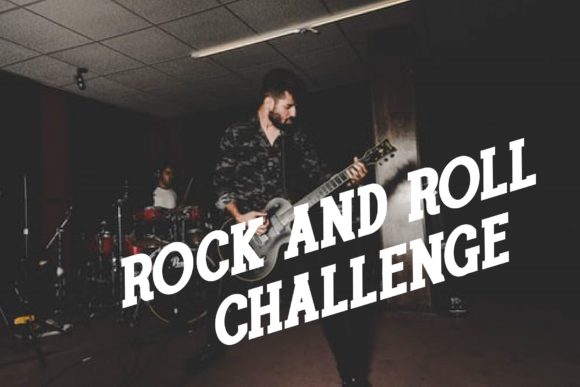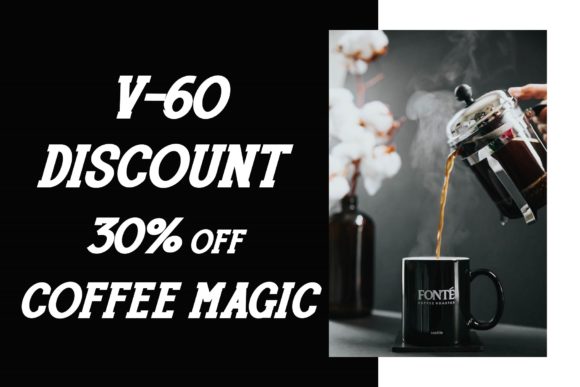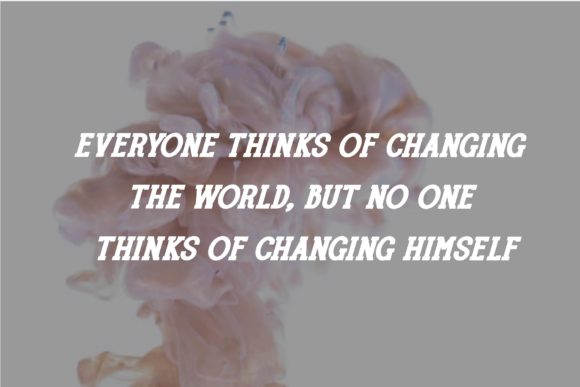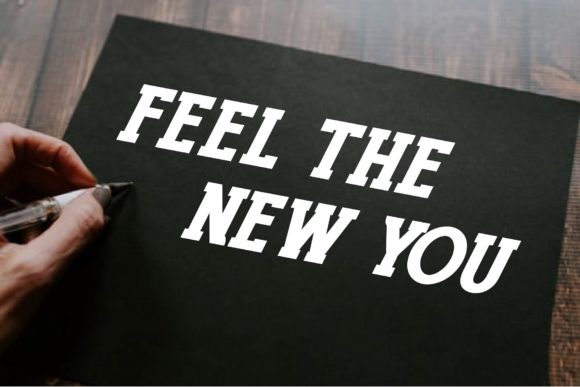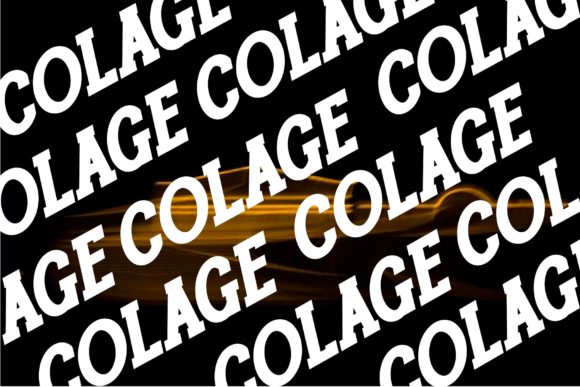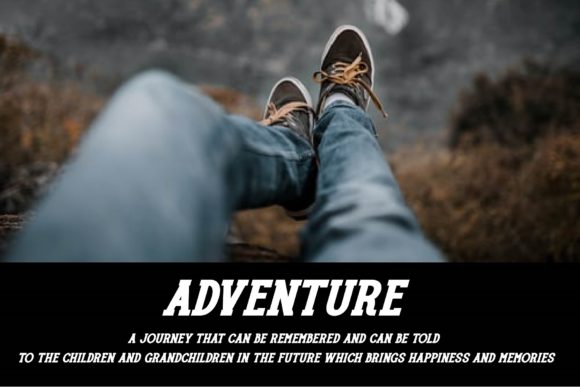
Unlock Your Creativity with Colage Font
Have you ever been in the middle of a design project, staring at a blank page, searching for the perfect font to bring your vision to life? That’s exactly where I was when I discovered the Colage Font – an oblique serif font that’s a game-changer for designers.
Colage Font is specifically designed for branding, product packaging, invitations, quotes, t-shirts, labels, posters, or any logo you want to develop. Its unique blend of elegance and playfulness makes it perfect for adding a personal touch to your designs. With Colage Font, you can take your designs to the next level and make them stand out in a crowded market.
Colage Font Key Features
- Unique Characteristics: Colage Font features a unique blend of geometric and organic shapes, creating a visually striking and modern aesthetic.
- Language Support: Colage Font includes support for multiple languages, including Latin, Cyrillic, and Greek scripts, making it a versatile choice for global branding and design projects.
- Scalability: The font is designed to be highly scalable, allowing it to maintain its integrity and legibility at various sizes and resolutions.
- Legibility: Colage Font is designed with legibility in mind, featuring clear and distinct letterforms that are easy to read in both digital and print applications.
Colage Font Review
I recently had the chance to work with Colage Font, and I must say it’s a mixed bag. There are some things that shine ✨, but also some limitations that keep it from reaching its full potential.
Unique design: Colage Font has a distinctive look that’s perfect for adding a touch of whimsy to your designs. The combination of bold lines and playful characters is sure to stand out.
High-resolution glyphs: The font is available in high-resolution formats, making it perfect for printing and digital use.
Good legibility: Despite its playful nature, Colage Font is still easy to read, even at smaller font sizes.
Limited font weights: Colage Font is available in only a few font weights, which can make it less versatile than other fonts.
No italics: Unfortunately, Colage Font doesn’t come with italics, which can limit its use in certain design scenarios.
Not suitable for body text: While Colage Font is great for headlines and titles, it’s not ideal for large blocks of body text due to its bold and playful nature.
Overall impression
Overall, I’d say Colage Font is a great choice for designers looking to add some personality to their designs. While it has some limitations, its unique design and high-resolution glyphs make it a solid option for many projects. Just be mindful of its limitations and use it sparingly for maximum impact.
Colage Font is a versatile font that can be used for various design projects.
Some common use cases include:
– Creating eye-catching headlines and titles
– Designing unique and creative typography
– Adding a touch of whimsy and personality to your designs
Remember to experiment with different font sizes, styles, and combinations to get the most out of Colage Font.